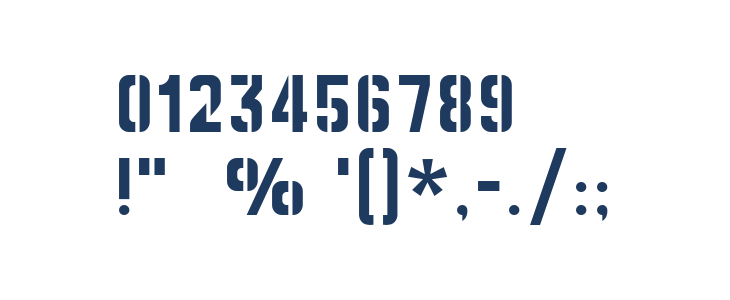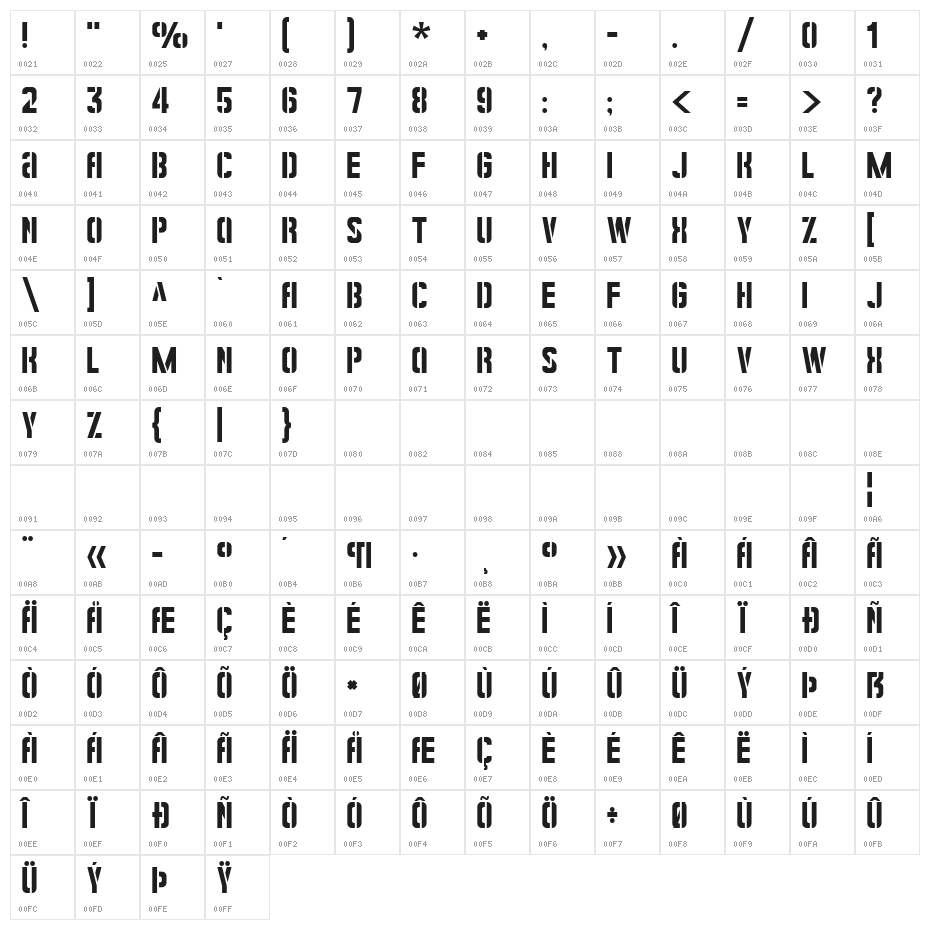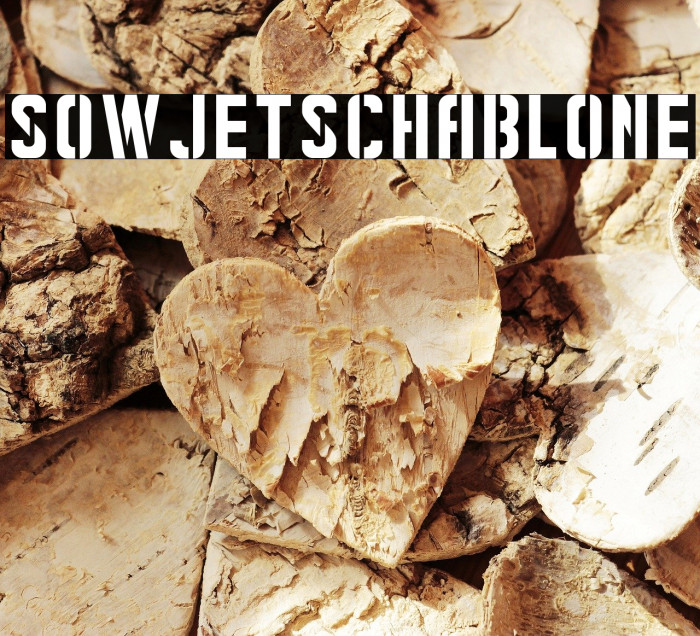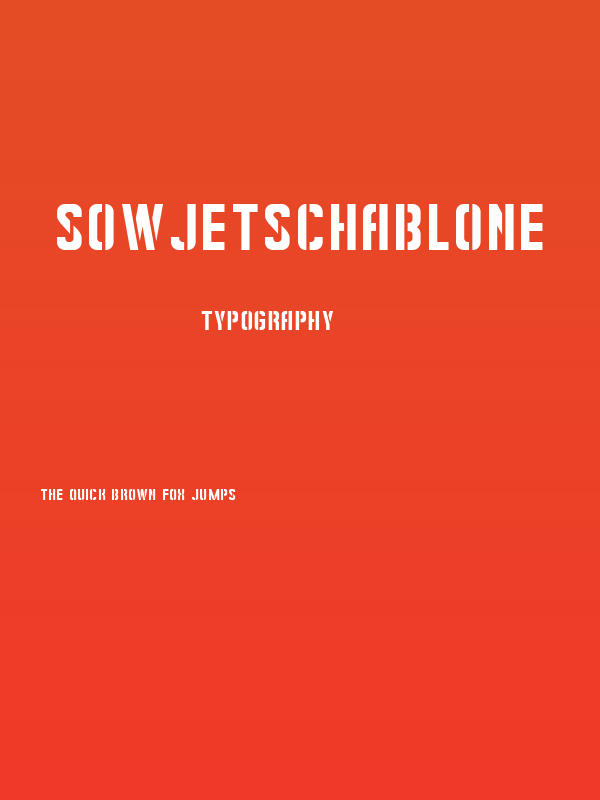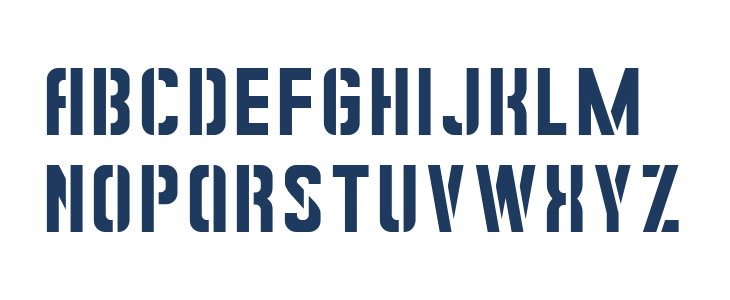
Sowjetschablone Font
Sowjetschablone Description
This font features a bold, stencil-like design with strong geometric shapes and a distinct industrial feel. Each character is crafted with precision, showcasing a uniform width and height that contributes to its structured appearance. The cut-out sections within the letters add a unique, utilitarian aesthetic reminiscent of military or industrial signage. The uppercase letters are particularly striking, with sharp angles and clean lines that enhance readability. The numerals and special characters maintain this cohesive style, ensuring versatility across various applications. The overall design is both functional and visually impactful, making it suitable for projects that require a bold statement.
| Overall Style | Industrial, Modern |
| Use Case | Headlines, Logos, Signage |
| Proposed Projects | Ideal for posters, signage, branding, and any project requiring a bold, industrial look. |